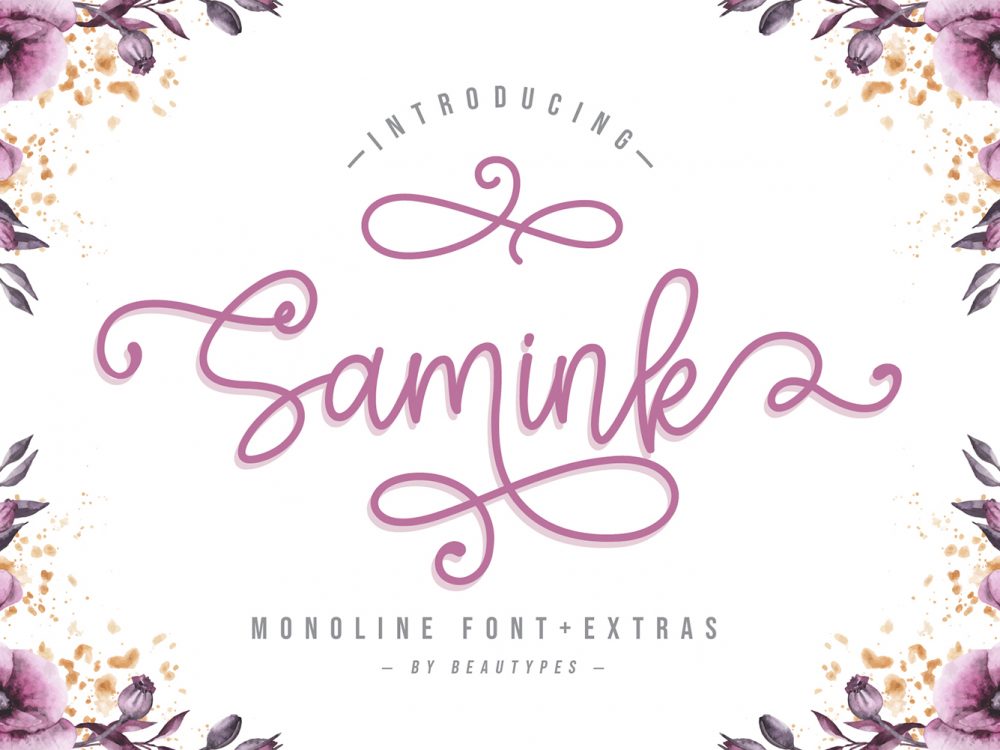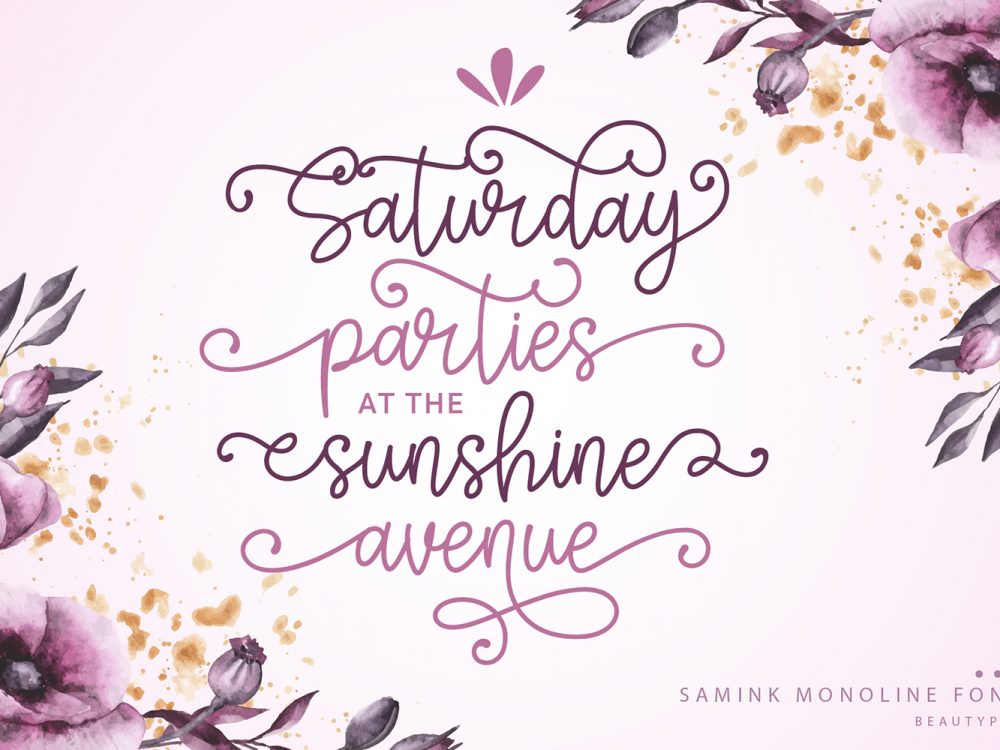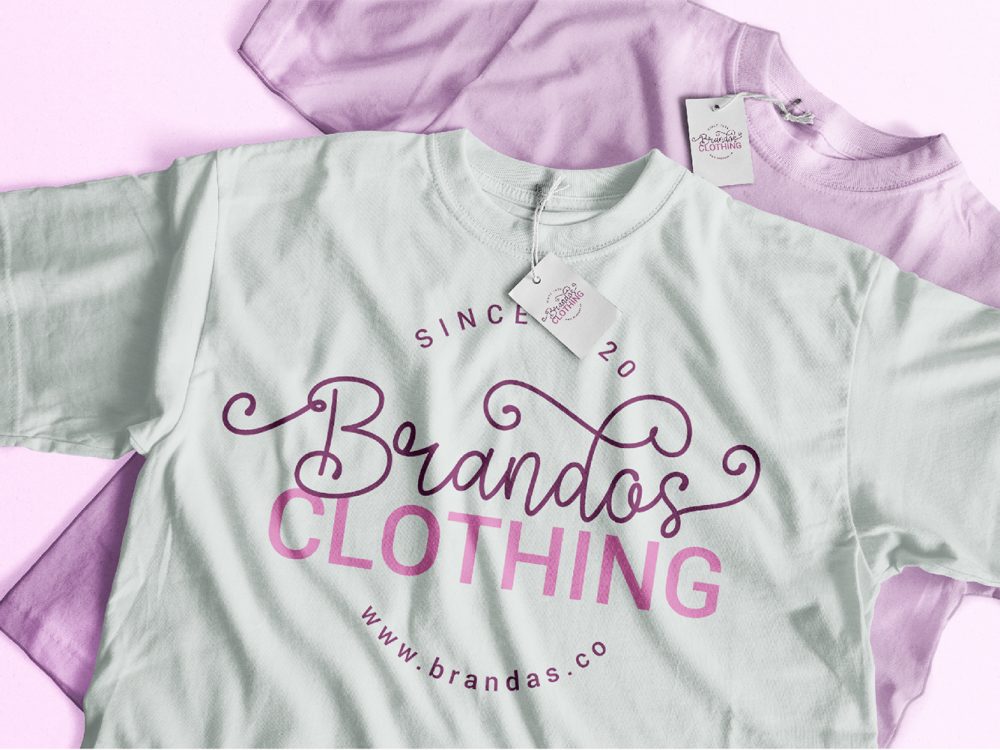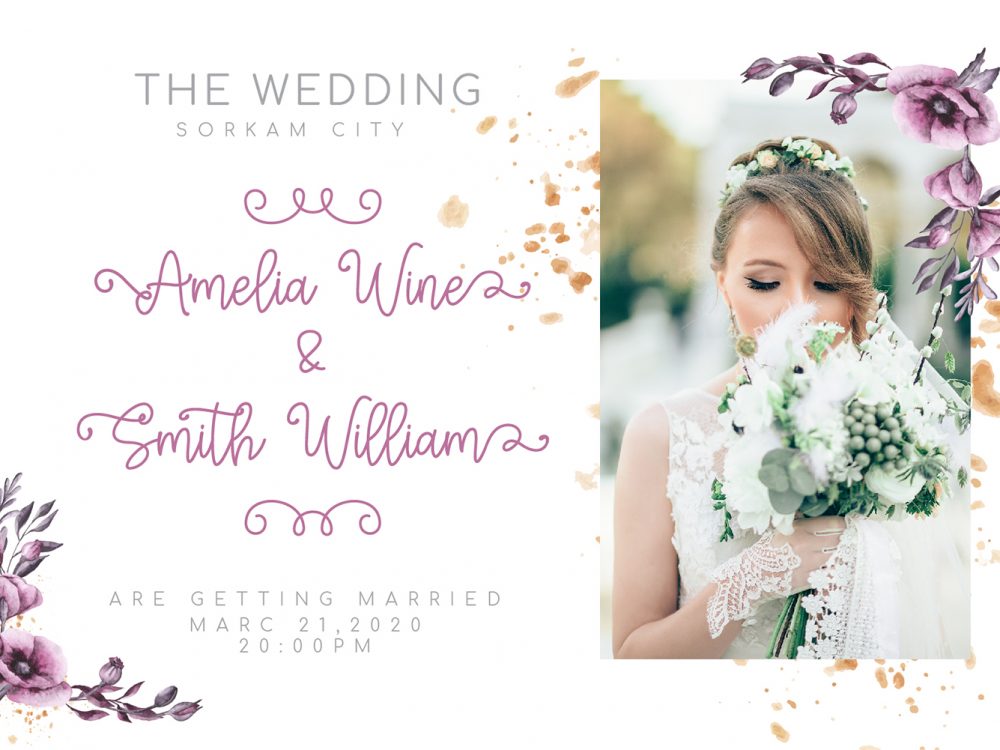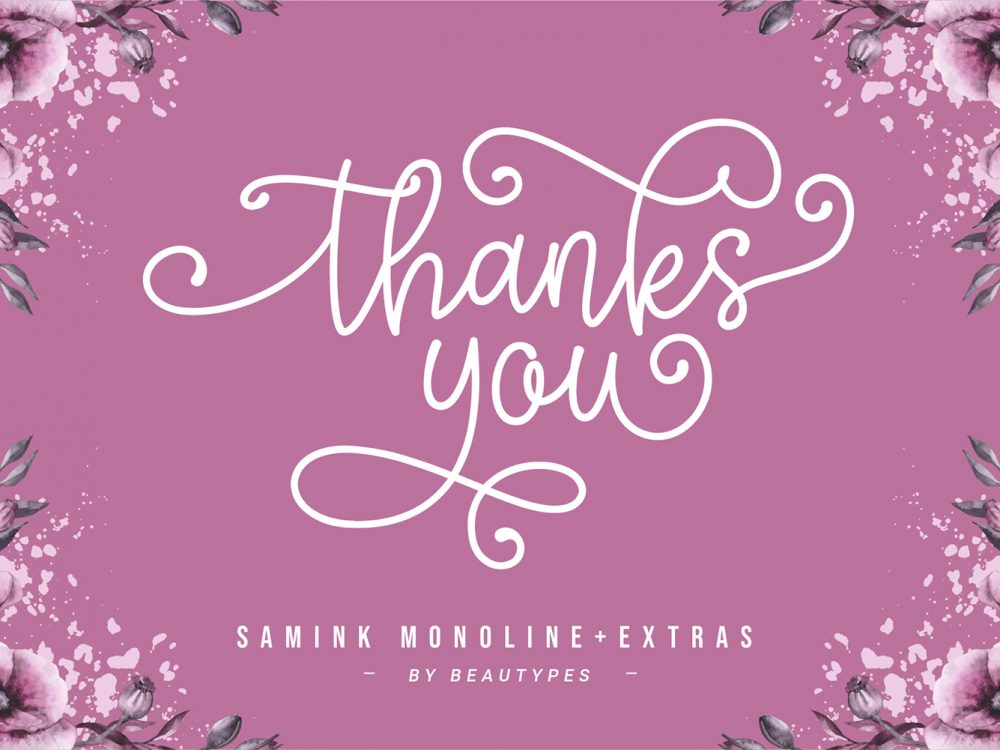
Samink Free Font
Samink Free Font is an interesting modern handwritten typeface with an elegant curly typeface. This font is great for creating a variety of projects that require a scripted curly font. This font is the best way to give you a sensible and romantic look. Use this font to create memorable posters, wedding invitations, greeting cards, branding, flyers, t-shirt and pillow prints, and more. If you like it don’t forget to check out the full version.